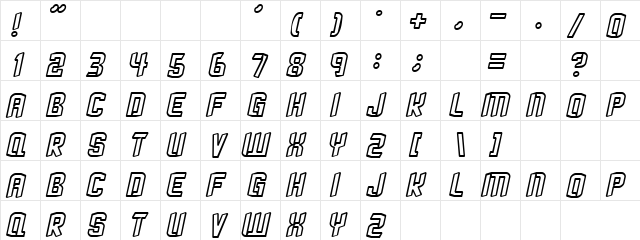
Mohabbath Regular
Design Context for Mohabbath Typeface
Mohabbath takes a measured approach to typography — its balanced proportions and neutral character make it a reliable workhorse for both digital and print work.